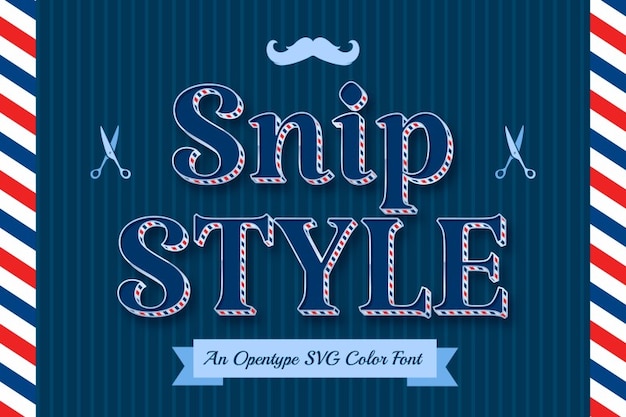
Snip Style is a striking and classic font that brings the essence of a traditional barbershop to life with a 3D twist. Perfect for barbershop logos, signage, and vintage-themed branding, this font features bold, clean lines and a three-dimensional effect. Snip Style adds a timeless and professional touch to your text, evoking the precision and charm of classic grooming.